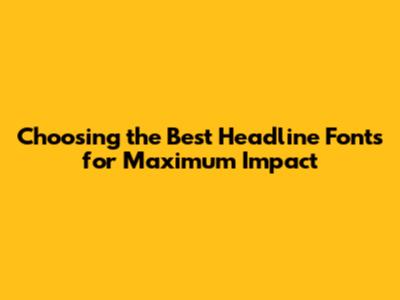
- Serif Fonts: These fonts have little strokes, called serifs, at the ends of the letters. Think of them as the classic, traditional look. They're great for conveying a sense of authority, trust, and history. Popular examples include Times New Roman and Georgia. They're super readable in print, which is why you see them in books and newspapers. They can also work well for headlines, especially if you're aiming for a classic or elegant vibe. If you are going for an article, website or product, these may not be your best option.
- Sans-Serif Fonts: As you probably guessed, sans-serif fonts don't have serifs. They are clean and modern, often associated with a minimalist and contemporary look. These fonts are typically seen as more approachable and less formal. Great examples are Arial and Helvetica. They're excellent for digital use because they are easy to read on screens, which means they are great for websites and mobile apps. They are usually the best choice for a majority of audiences.
- Script Fonts: Script fonts imitate handwriting and often add a touch of elegance or creativity. They are great for headlines where you want to add a personal or artistic feel. However, use them sparingly. They can be hard to read if used excessively. Popular choices are Brush Script and Lobster. Be super careful with these. Overuse can make your content look unprofessional.
- Display Fonts: This is a catch-all category for fonts that are designed to stand out. They are often bold, unique, and meant to grab attention. They include everything from decorative fonts to those with unusual shapes. These are perfect for headlines. However, they can be overused and difficult to read if used without care. Use these with caution, and only when they fit your brand's specific style.
Hey guys! Ever stopped to think about how much a font can change how people see something? It's like, mind-blowing, right? When we're talking about headlines, the font choice is super important. It's the first thing people see – the thing that grabs their attention and makes them want to read more. So, if you're looking to make your headlines pop and really connect with your audience, you've gotta get the font right. In this article, we'll dive deep into the world of headline fonts, exploring everything from the basic principles of font selection to the nuances of different font families. I'll help you pick fonts that really work and make your headlines absolutely shine. Think about it: a well-chosen font can make a huge difference in how your message lands. It can speak volumes about your brand and make people feel a certain way. On the other hand, a bad font choice? Well, it can make your headline look unprofessional, or even downright confusing. Let's get started, and I'll show you how to make sure your headlines are always on point!
Why Headline Fonts Matter So Much
Alright, so why are headline fonts so incredibly important? Well, think of a headline as the handshake of your content. It's the first impression, the thing that decides whether someone sticks around or clicks away. A compelling headline, with a well-chosen font, can draw readers in immediately. It sets the tone for your entire piece, telling people what to expect and giving them a reason to keep reading. Imagine you're scrolling through social media. You're probably going through tons of content, right? Each headline is competing for your attention. The font can seriously change the game! A font that's easy to read, that matches the message, and that looks good can be the difference between someone stopping to take a look and just scrolling on by. A good font also reflects your brand's personality. Is your brand fun and playful, or more serious and professional? The font should match. It helps create a cohesive look that people will start to recognize and associate with your brand. Headline fonts can also improve readability. Some fonts are simply easier to read, especially at larger sizes. This is super important because no one wants to struggle to understand a headline. If it's too difficult, they'll just move on. Another crucial point to note is the role of fonts in creating visual hierarchy. A well-chosen headline font will stand out from the rest of the text, immediately signaling to readers that it's important. This helps guide their eye and makes it easier for them to understand what the content is about. Using different fonts can create visual interest and draw readers into the content. So, choosing the right headline font isn't just about aesthetics; it's about strategy. It's about connecting with your audience, reflecting your brand, and making sure your message gets heard. In short, it's about making your headlines irresistible!
The Fundamentals: Understanding Font Families
Okay, before we get to the fun part of picking fonts, let's cover the basics. To choose the right headline fonts, you need to understand font families. Think of font families as groups of fonts that share a similar design. Knowing these families will give you a solid foundation for making your choices. The most common families are: Serif, Sans-Serif, Script, and Display.
Matching Fonts to Your Brand Personality
So, you know the basics of font families. Now, let's talk about matching those headline fonts with your brand's personality. Your brand identity is like your personality. Do you want your brand to be friendly and approachable, or serious and authoritative? The fonts you pick can help communicate that personality to your audience. If your brand is playful and fun, you might consider a sans-serif font like Open Sans or a display font that's a bit more whimsical. These choices can create a sense of fun and approachability. Conversely, if your brand is all about reliability and trust, you might opt for a classic serif font like Georgia or a clean sans-serif like Helvetica. These fonts tend to evoke feelings of professionalism and dependability. Think about the overall message you're trying to send. Is it bold and innovative, or subtle and sophisticated? A bold message might work with a strong sans-serif font or a striking display font. A more subtle message might be better with a classic serif or a softer sans-serif. Always consider your target audience. Who are you trying to reach? What kind of fonts will resonate with them? For instance, a font that works well for a tech company might not be the best choice for a fashion brand. Remember that your font choices will be key in the overall look and feel of your brand. They should be consistent across all your marketing materials. That way, you create a recognizable and memorable brand that people will connect with. In short, your headline fonts should be a true representation of your brand's identity and communicate your core values.
Font Combinations: Creating Visual Harmony
Okay, let's talk about font pairings. Knowing how to combine headline fonts and body text fonts is crucial for creating visual harmony. Here’s the thing: you're not just picking one font, you're picking a set. The best pairings create a balance that's pleasing to the eye and enhances readability. One classic approach is to pair a serif font for headlines with a sans-serif font for body text. This contrast helps the headlines stand out while the body text remains clean and easy to read. For example, you might use a serif like Georgia for your headlines and a sans-serif like Open Sans for the body text. This type of pairing provides a clear visual distinction between your titles and content. Another great option is to use two different weights or styles within the same font family. Use a bold or heavy weight for the headlines and a lighter weight for the body text. This keeps things consistent while still adding emphasis to your headlines. This is particularly helpful when you want a clean, modern look. Consider using the same font for both headlines and body text, but vary the size, weight, and style. For instance, use the heavier version of your font for headlines and the regular version for the rest of your content. This strategy creates a cohesive look that is easy on the eyes. Always test your font combinations. Print them out, view them on different devices, and see how they work at various sizes. Try a variety of pairings before settling on the perfect combination for your brand. There's a lot of experimenting involved! Choosing a font pairing isn't just about picking two fonts that look good together. It's about how they interact and create a balanced visual experience. Great pairings make your content more enjoyable to read, which is a key element of effective communication.
Avoiding Common Font Mistakes
Alright, so you've learned a lot, but let's talk about things to avoid. There are some common mistakes when picking headline fonts that can seriously mess up your design. One major no-no is using too many different fonts. Seriously, this can make your design look chaotic and unprofessional. Sticking to a maximum of two or three fonts—one for headlines, one for body text, and maybe a third for emphasis—is a good starting point. You want consistency, not a font party. Another mistake is using fonts that are hard to read, especially for headlines. Remember, the goal is to grab attention, but if people can't quickly understand the headline, they'll just scroll past. Always test your fonts at different sizes to make sure they're clear and legible. Don't use fonts that clash. This means avoiding combinations where the styles and personalities of the fonts are just fighting with each other. This is about balance and visual harmony. Be careful with those fancy display fonts. While they can be super eye-catching, they can also quickly become overwhelming or difficult to read if used excessively or in the wrong context. Know when to tone it down. Always consider your audience. A font that looks great on a website for a gaming company might not be suitable for a law firm. Make sure your font choices are appropriate for your target demographic and the message you want to send. Don't underestimate the importance of contrast. Headlines need to stand out from the rest of your content. Make sure your headline font is visually distinct from your body text. This can be achieved through differences in size, weight, color, or style. Avoid stretching or distorting fonts. This can make them look unprofessional and hard to read. Stick to the original proportions of the font for the best results. Keep these tips in mind, and you will be well on your way to selecting fonts that are both visually appealing and effective.
Tools and Resources for Font Selection
To make your font selection process easier, there are many tools and resources available. Websites like Google Fonts and Adobe Fonts are amazing places to start. They offer a vast library of free and paid fonts that you can easily download and use. These resources have tons of fonts to choose from, and they also provide tools to test out different combinations. Use online font pairing tools to help you find combinations that work well together. These tools often suggest pairings that are visually harmonious and match different brand styles. For inspiration, browse websites that showcase great design and font usage. This can provide fresh ideas and help you discover new fonts. Use font identification tools, like WhatTheFont, to identify fonts you see online or in print. This is especially useful if you are inspired by the fonts you see in other designs. Experiment with different font sizes, weights, and styles. Make sure that your headlines are legible and impactful at different sizes. Use a style guide to keep your font choices consistent across all your marketing materials. This ensures a cohesive brand identity and a unified look and feel. Take advantage of resources such as blogs and tutorials. Many websites offer insightful articles and videos that explain the principles of font selection. Check out the latest design trends. Understanding current trends can help you stay current and choose fonts that align with contemporary styles. There's a ton of help out there. Using these tools and resources can help you choose the best headline fonts for any project.